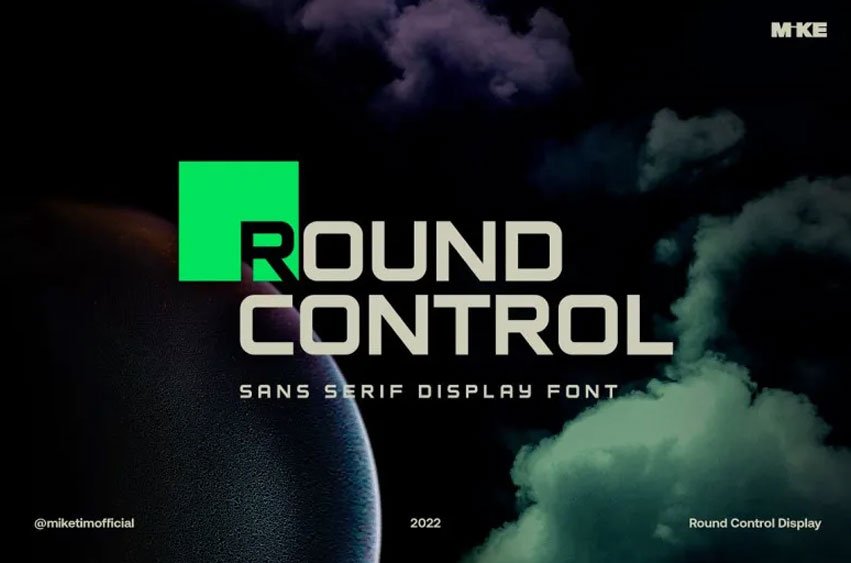
Round Control Font is an elegant sans-serif show font inspired by both aerospace and automotive industries, designed with a versatile style to work across many other styles.